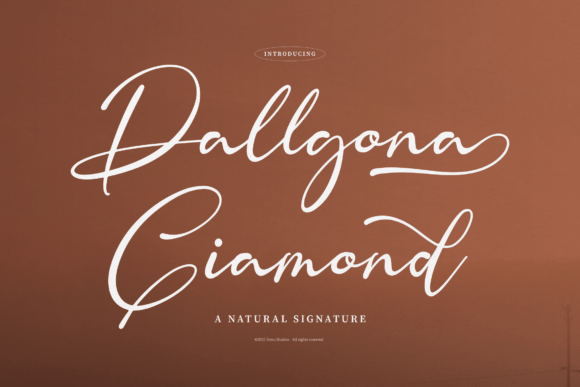
Dallgona Giamond Font
About the Dallgona Giamond Font
Elevate your designs with Dallgona Giamond Font, a font that combines sophistication with readability. Dalgona Diamond is a refined and flowing natural signature font designed to give your work an authentic handwritten touch. Its elegant curves and smooth strokes make it ideal for branding, personal signatures, wedding invitations, and product packaging. A perfect blend of sophistication and charm.
Dalgona Diamond excels in applications requiring a touch of refined elegance, such as logos, short headlines, and premium product packaging. Its flowing nature makes it unsuitable for large blocks of text or body copy; legibility suffers at smaller sizes. Avoid using it in UI design or situations demanding high readability.
This font’s personality is sophisticated yet approachable. It works best for brands projecting quality, craftsmanship, or a personalized touch. Think luxury goods, boutique hotels, or high-end stationery.
Pairing it with a clean sans-serif like Lato for body text provides excellent contrast and balance. Alternatively, a classic serif like Garamond could enhance the elegant feel for more formal applications. Avoid pairing it with other script fonts to prevent visual clutter.
Dallgona Giamond Font Usage Examples
Dallgona Giamond Font Example